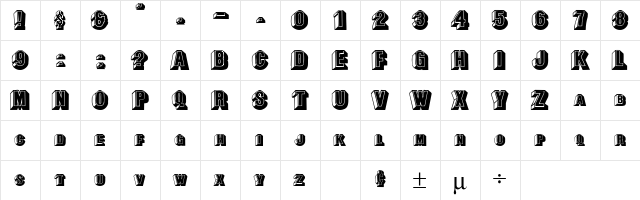
Lee Capitals Regular
Design Context for Lee Capitals Typeface
Lee Capitals is a composed and adaptable typeface that performs quietly and consistently across a wide range of design contexts.